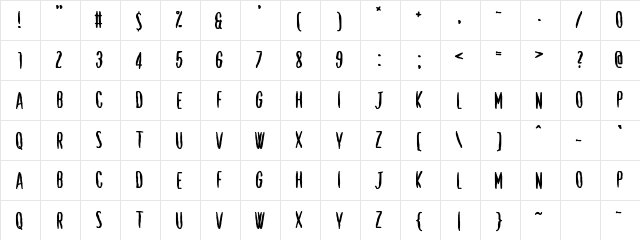
Shut Up and Love Me Regular
| Designer | Allison James |
Design Context for Shut Up and Love Me Typeface
Shut Up and Love Me is a composed and adaptable typeface that performs quietly and consistently across a wide range of design contexts.